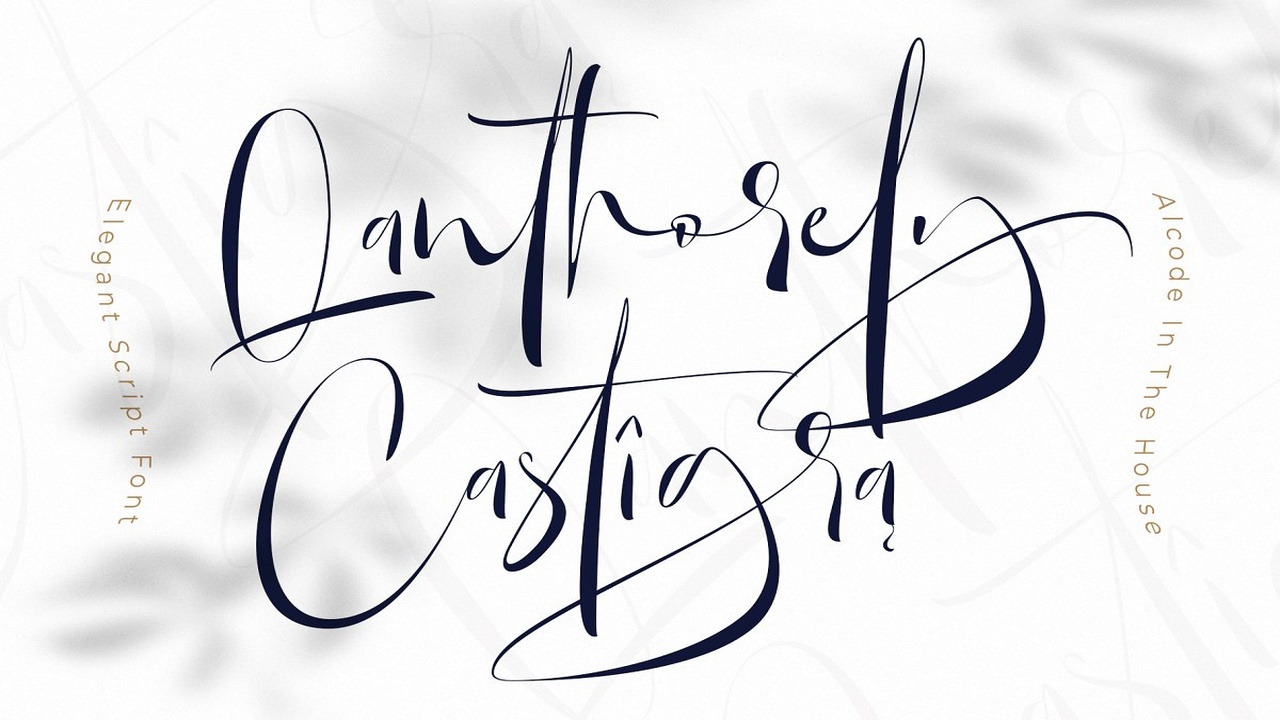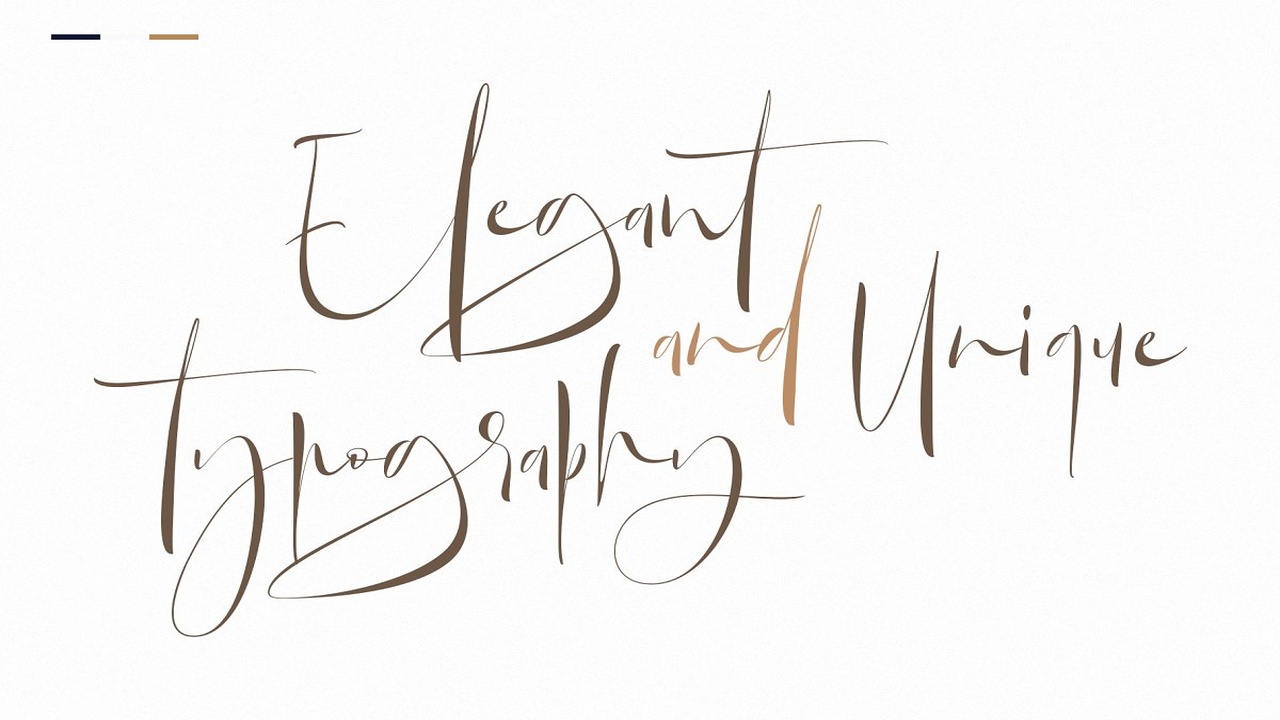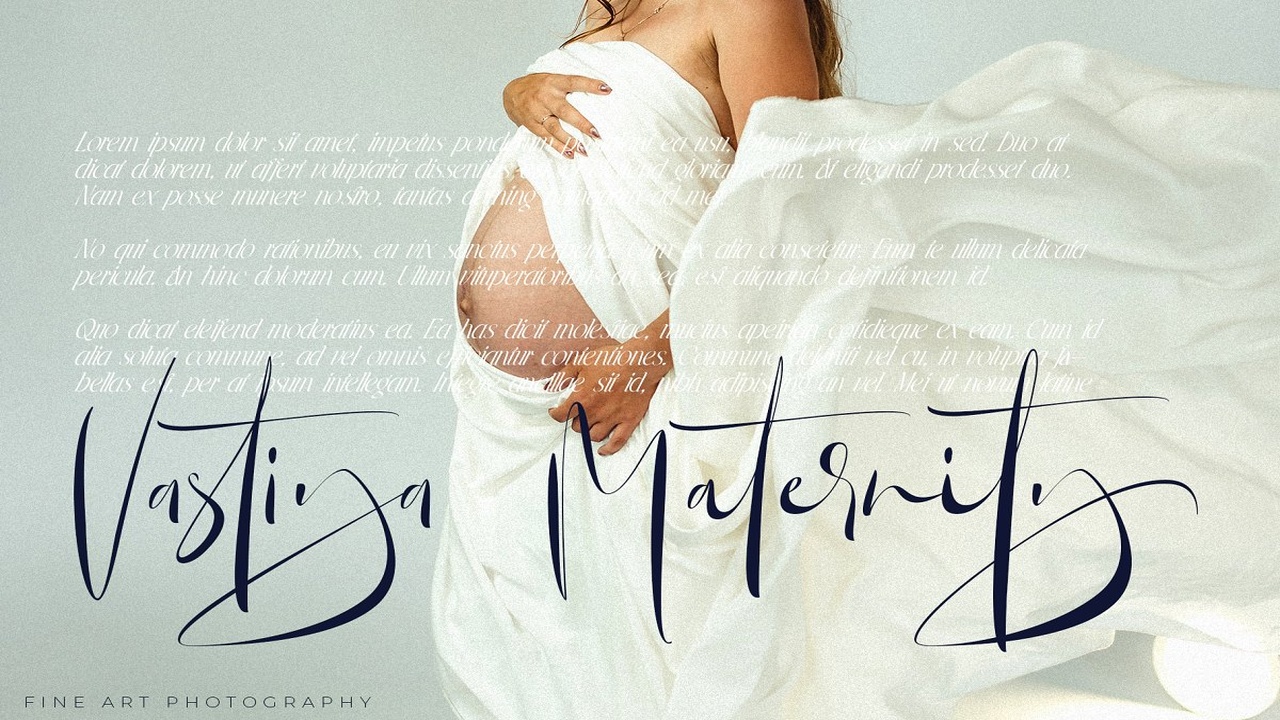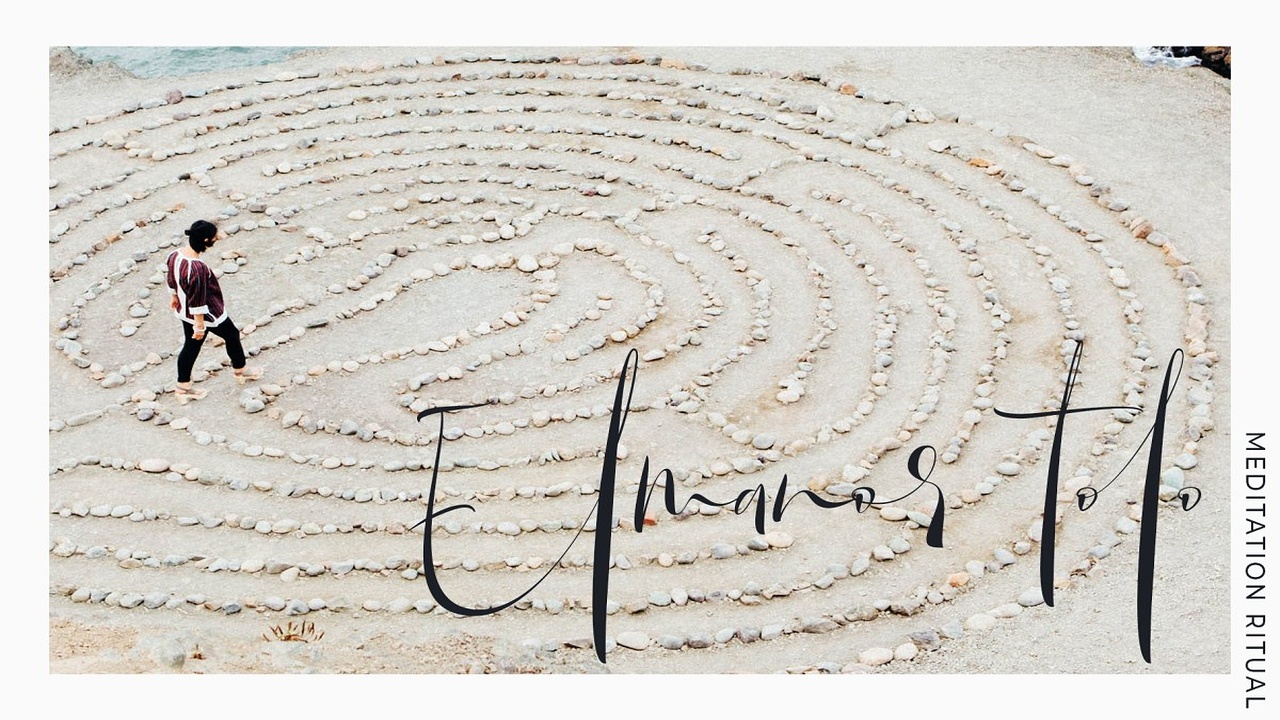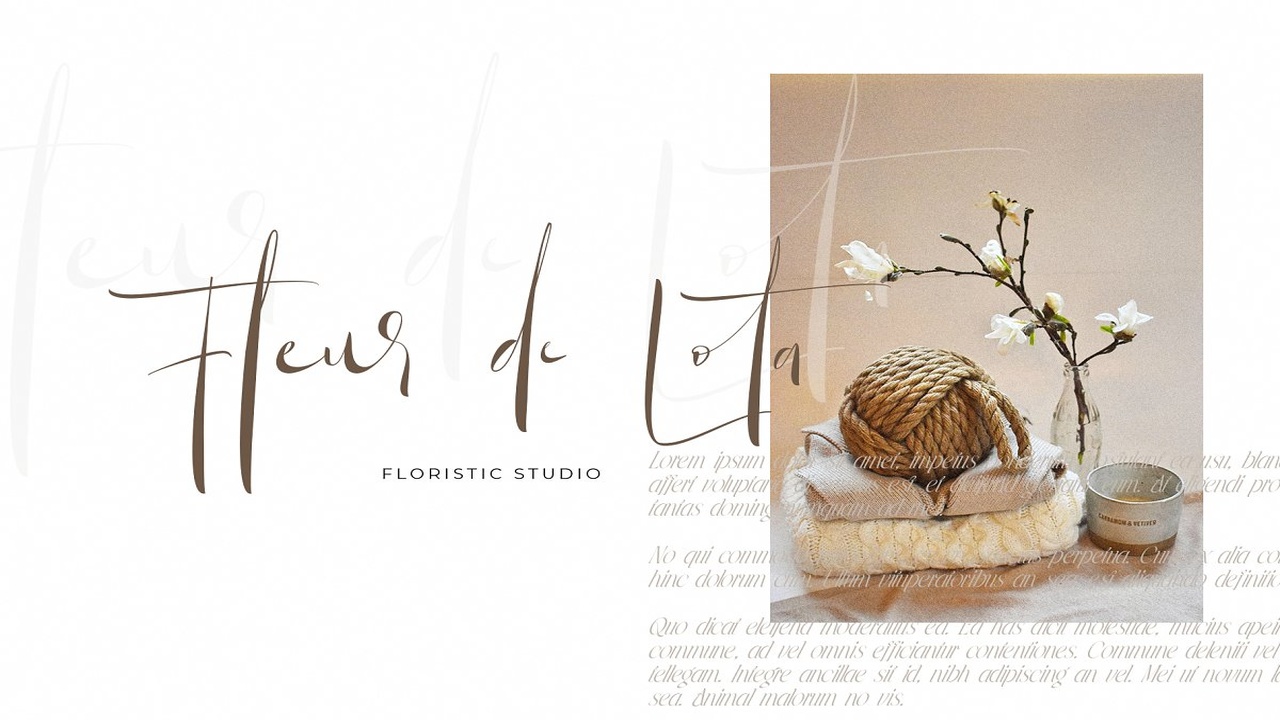
About the Qanthorely Castigra Font
Qanthorely Castigra an elegant and unique calligraphy font, Carefully designed to work together in harmony that makes it perfect for wedding media, book covers, greeting cards, logos, branding, business cards and certificates, even for any design work that requires unique, formal or luxury, Try Qanthorely Castigra, enjoy the richness of OpenType features and let her fun and elegant excitement make you happy and enhance your creativity! You can use this font very easily